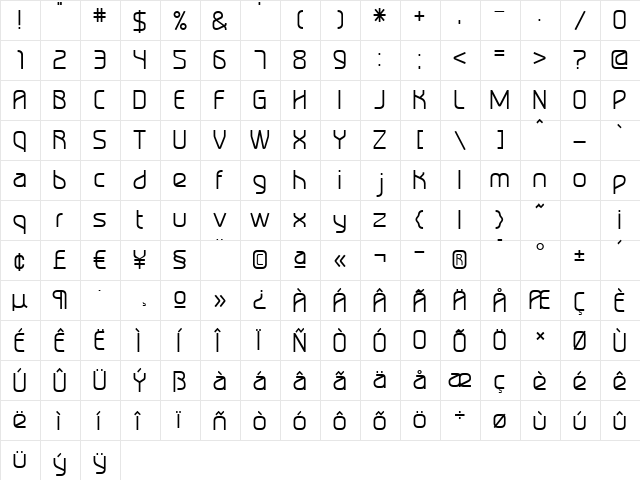
TurboLight Regular
Design Context for TurboLight Typeface
TurboLight is a composed and adaptable typeface that performs quietly and consistently across a wide range of design contexts. The delicate stroke weight brings airiness and refinement to layouts.